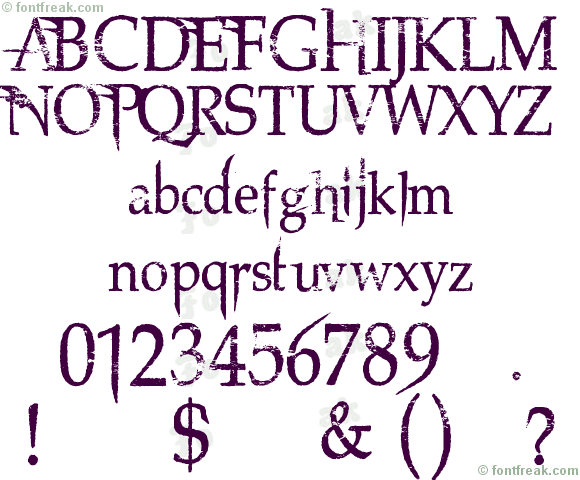
Northwood High
About Northwood High
The Northwood High font, designed by Pi Luo Chiu in 2009, is a captivating display typeface that showcases a unique blend of artistic flair and readability. This font falls into the decorative category, making it perfect for projects that require a touch of creativity and personality. Its visual characteristics include a medium stroke weight with a slightly rough texture, providing an organic, hand-crafted feel. The contrast between the thick and thin lines gives it a dynamic presence, while the artistic embellishments, such as stylized serifs, add an element of sophistication. The spacing is well-balanced, ensuring legibility even in larger sizes.
Northwood High is ideal for a variety of creative applications. It shines in wedding invitations, adding a romantic and whimsical touch that captures the essence of the occasion. Additionally, it is well-suited for movie posters, where its distinctive style can evoke intrigue and attract attention. Restaurant menus can benefit from its decorative nature, making dishes appear more enticing. Furthermore, this font is a great choice for branding projects, allowing small business owners to convey a unique identity that stands out in a crowded marketplace.
What sets Northwood High apart is its ability to seamlessly combine creativity with functionality. Whether used for print or digital applications, it captures the viewer's attention while maintaining readability. This distinctive font is sure to leave a lasting impression, making it an excellent choice for those looking to elevate their design work.